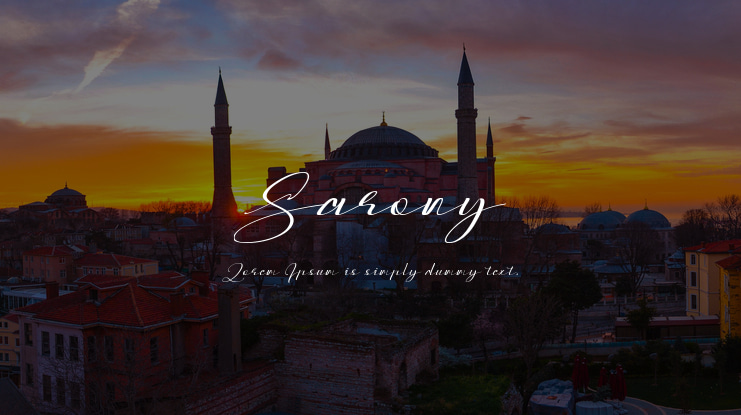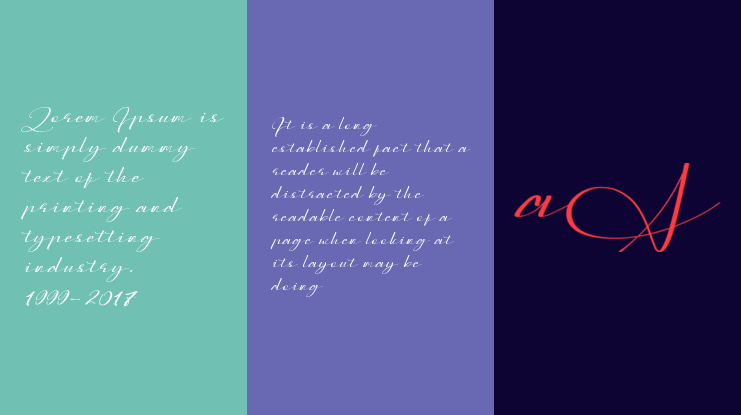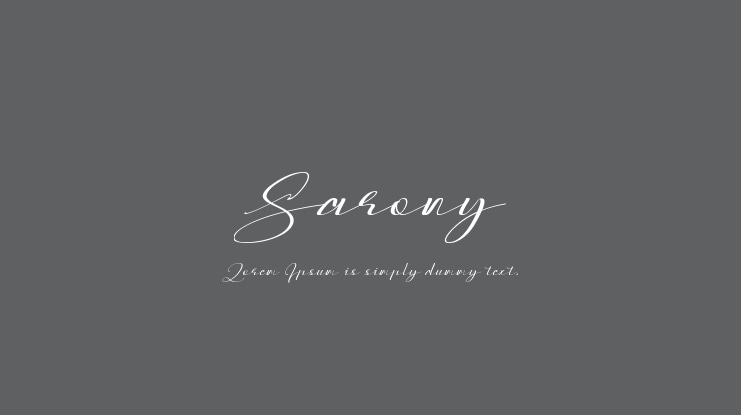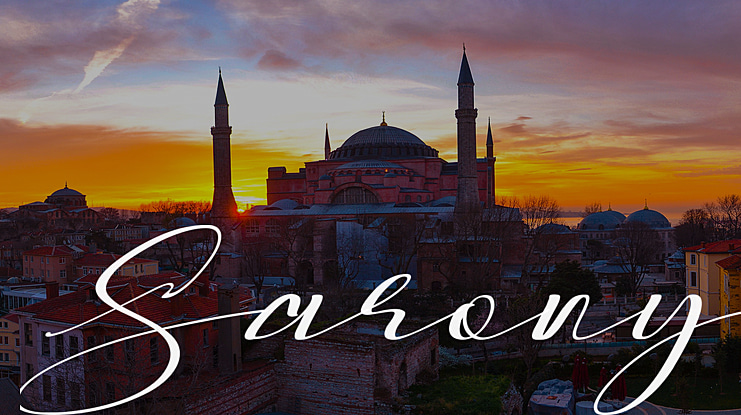
Sarony Font
Ekayasa
“Sarony” is a modern handwritten font with contextual alternates featur. It is perfect for branding, wedding invites and cards.
“Sarony” includes full set of uppercase and lowercase letters, numerals, a large range of punctuation and 118 ligatures. All lowercase letters include ending swashes, that makes the font look fabulous! Also there are lots of stylistic alternatives, making each letter different.